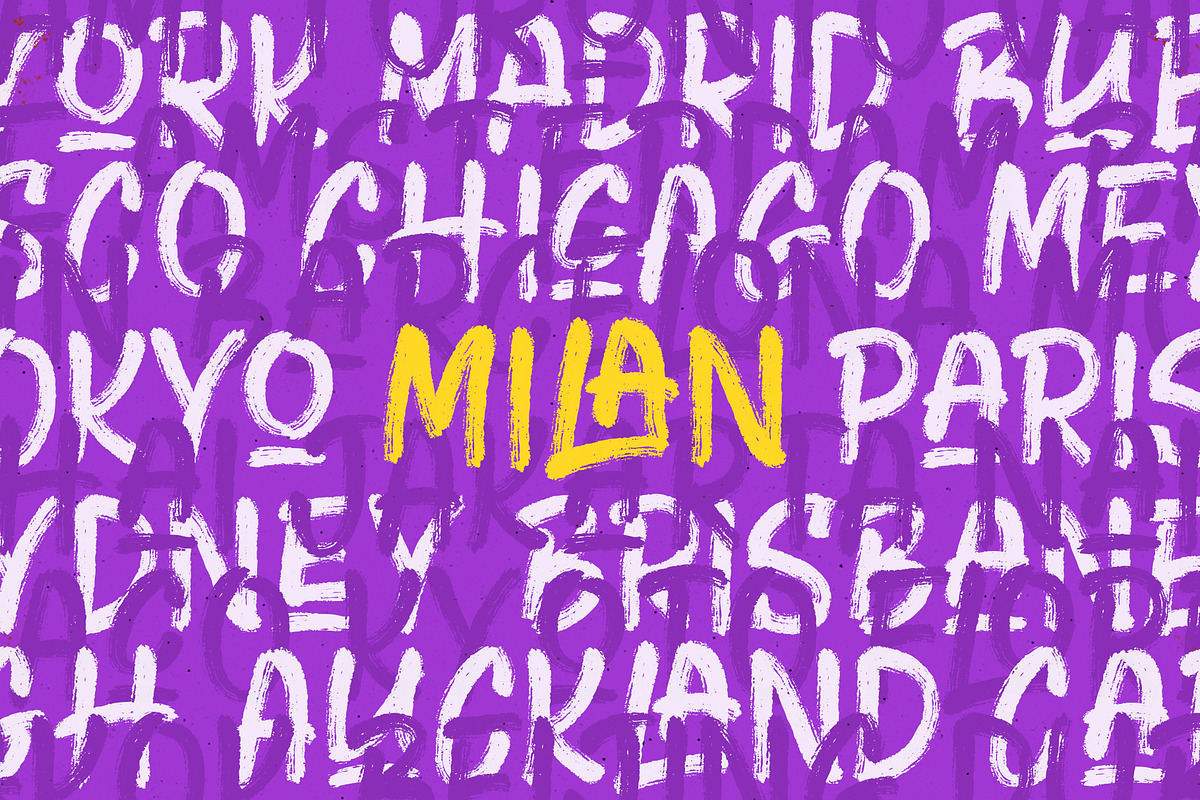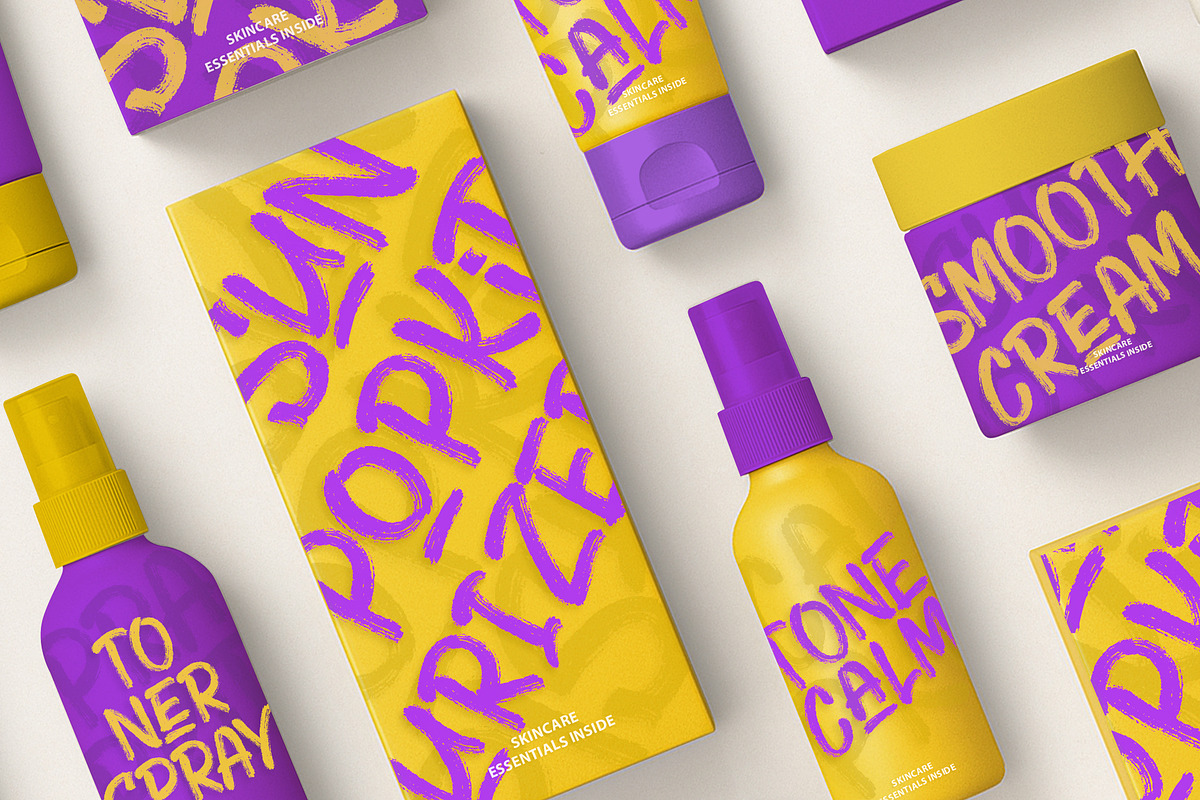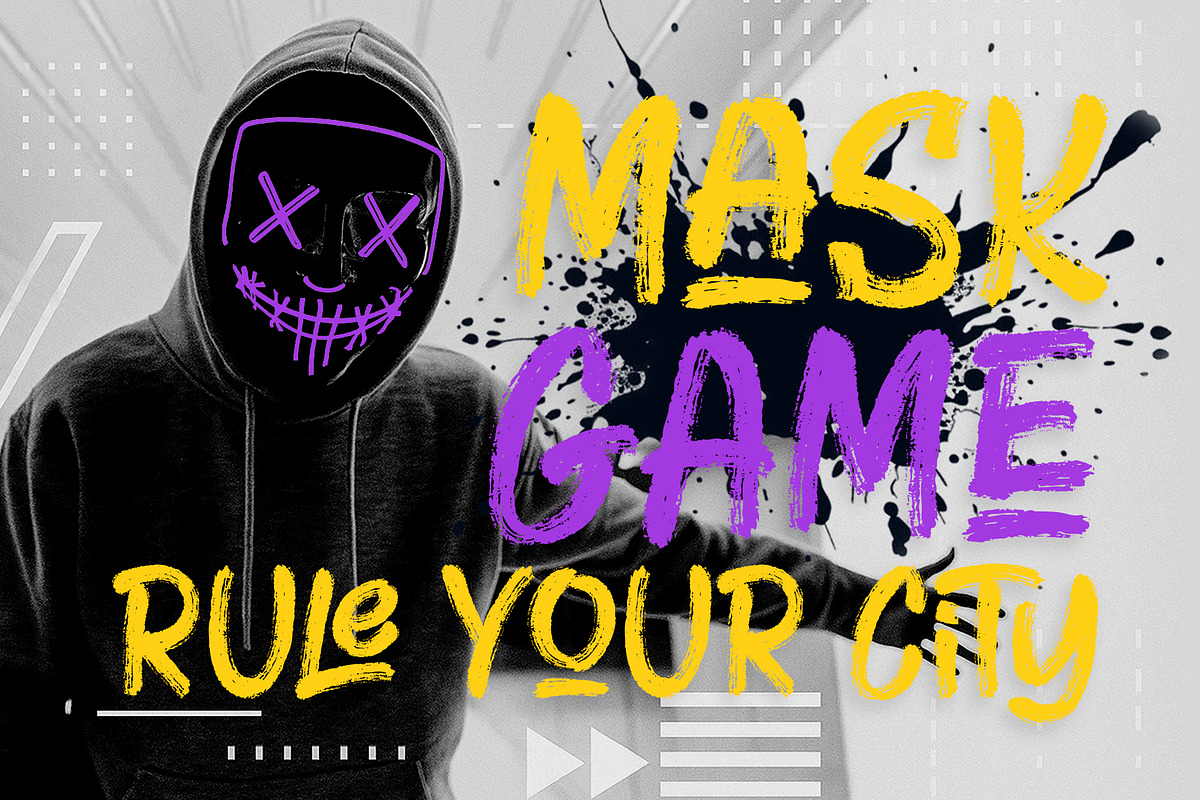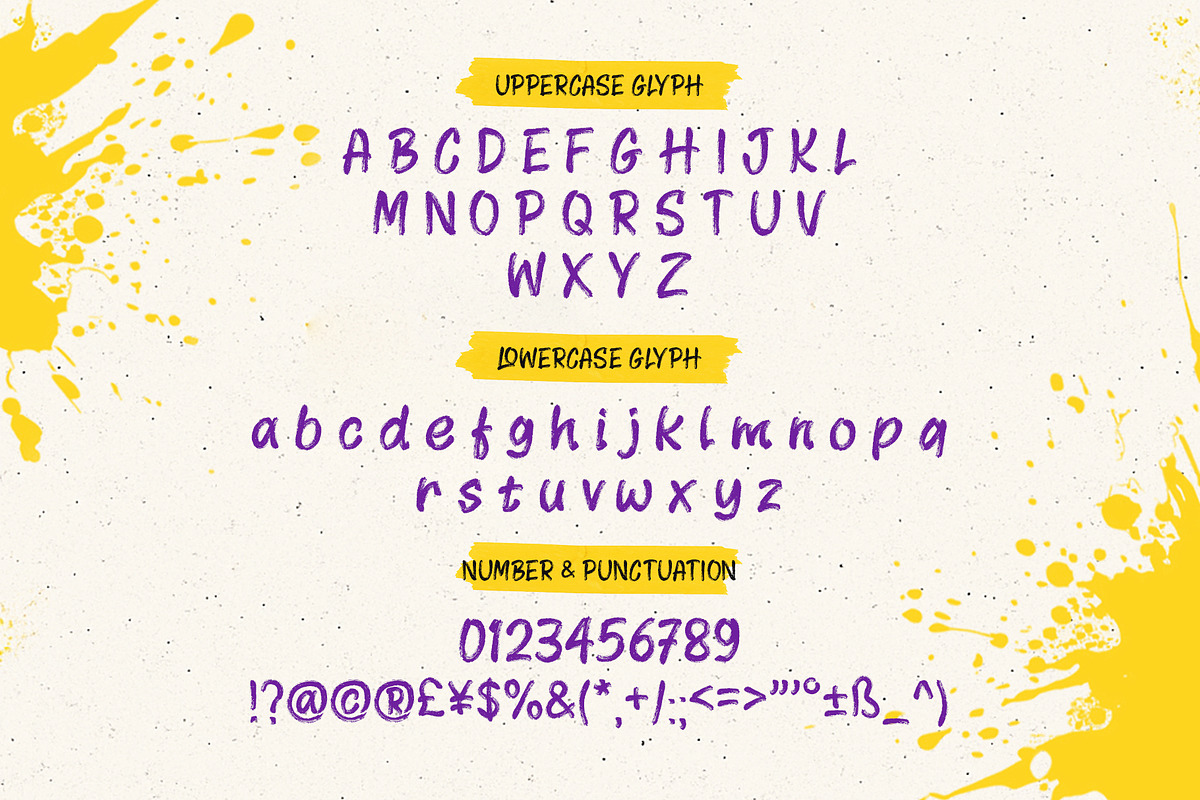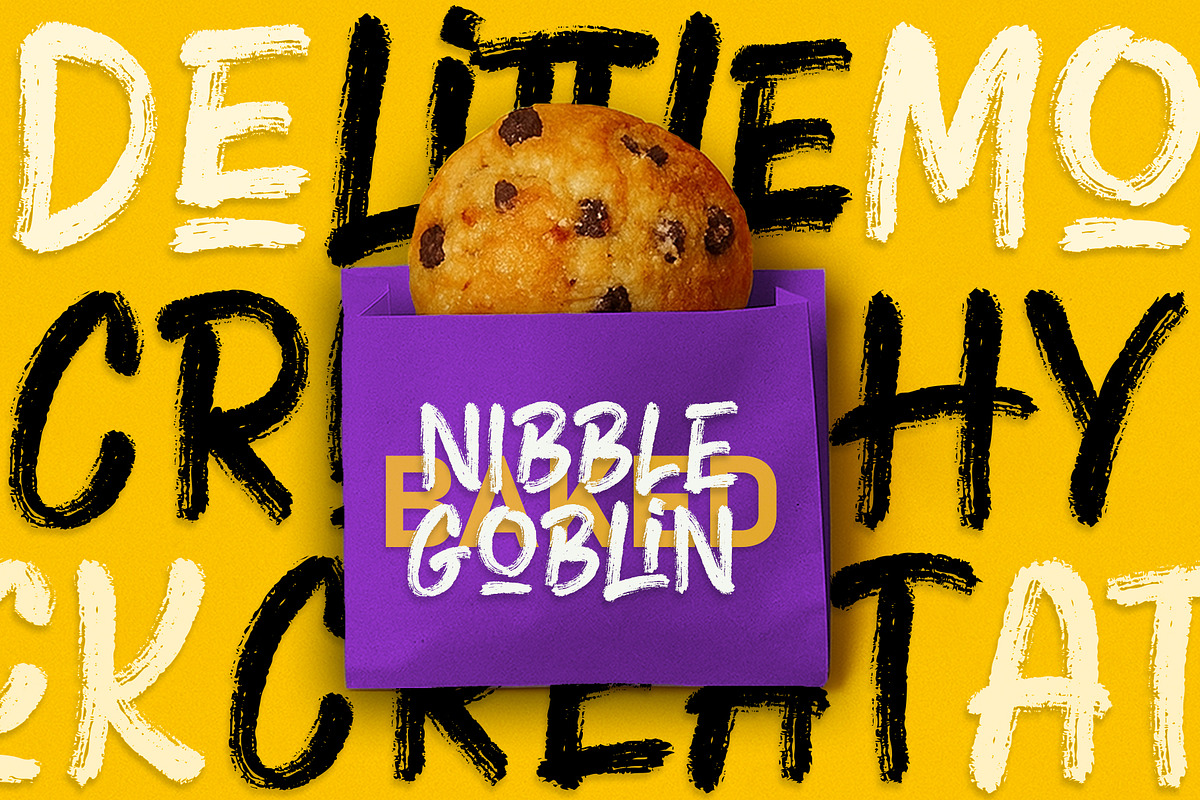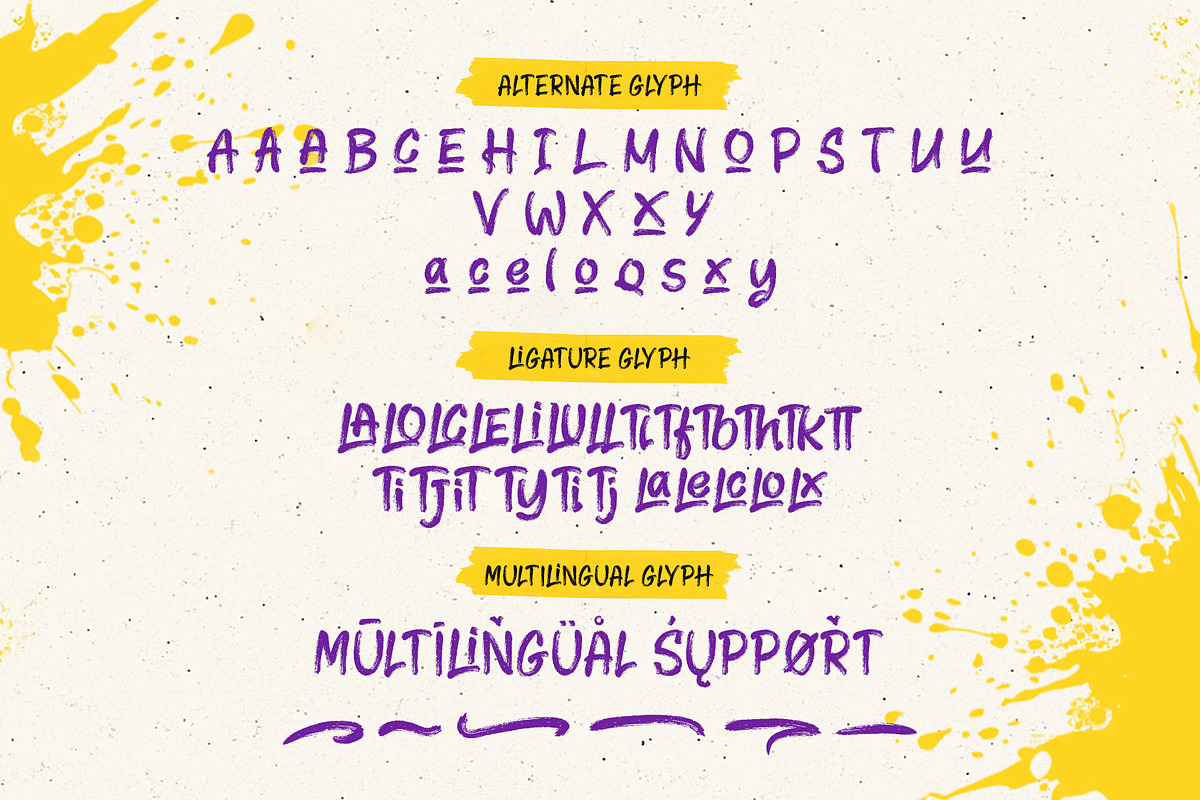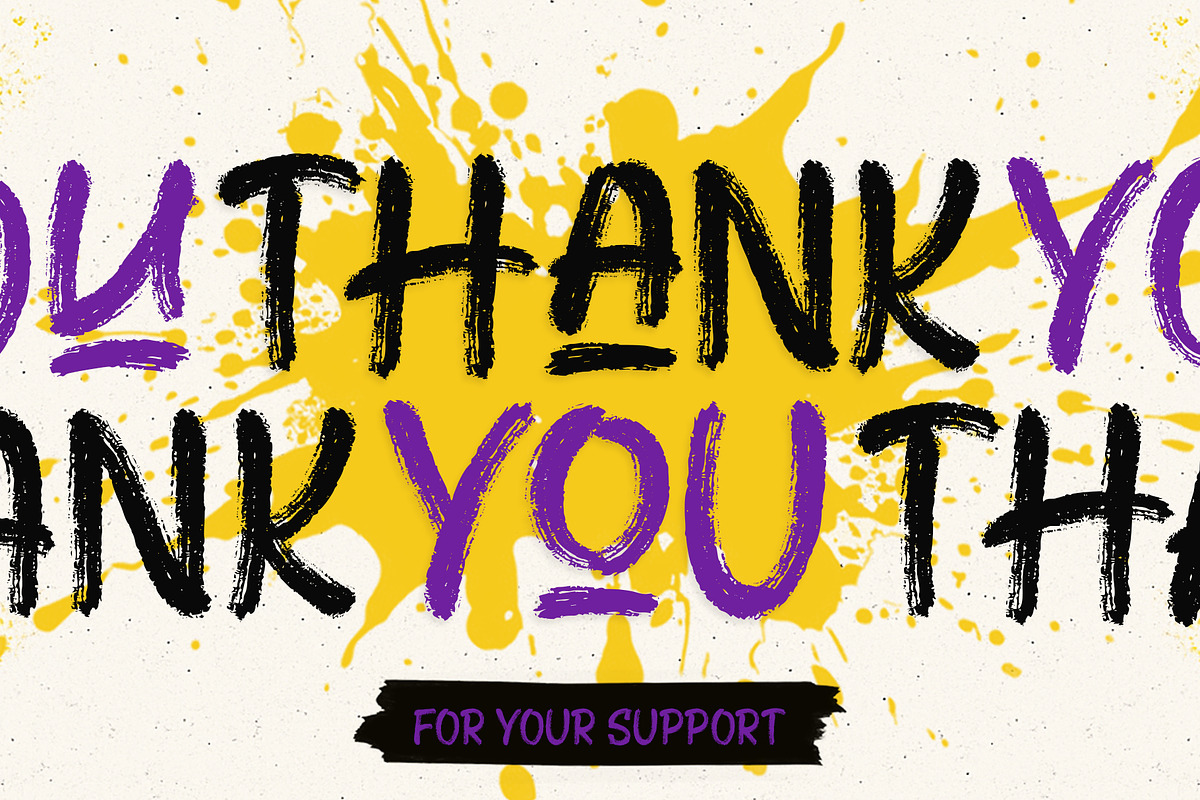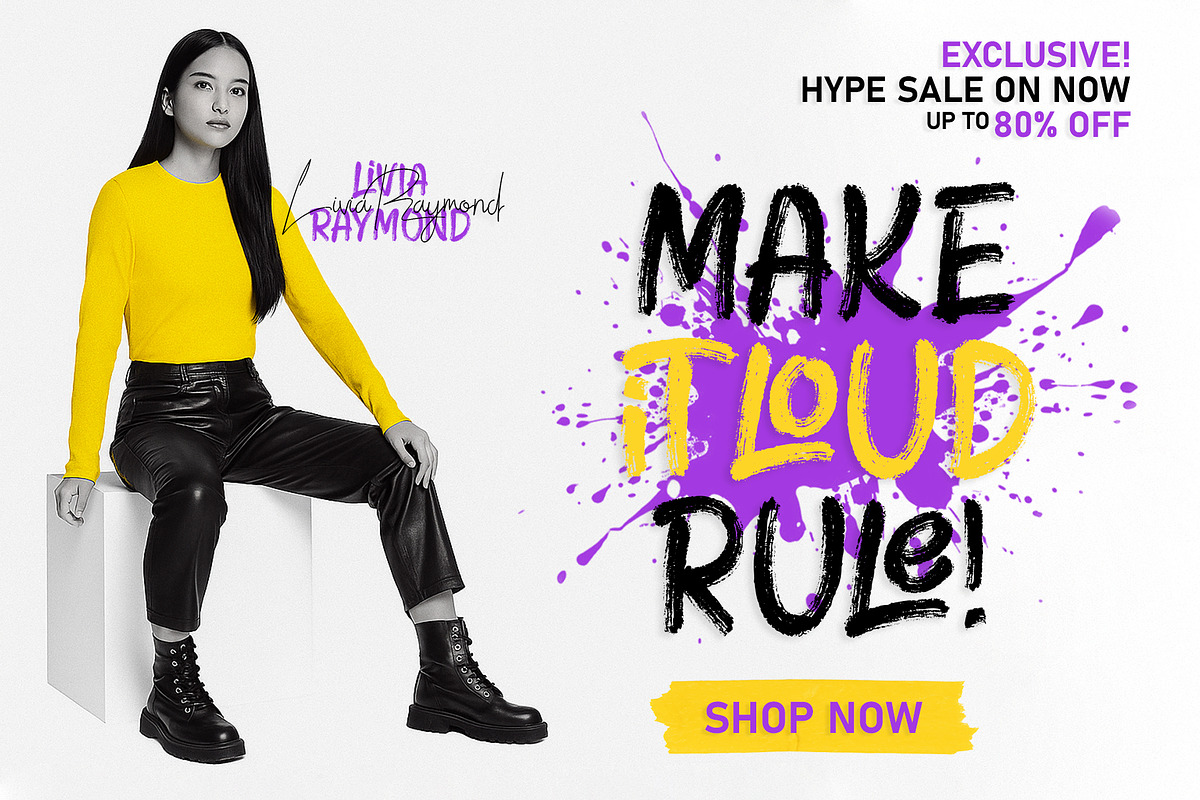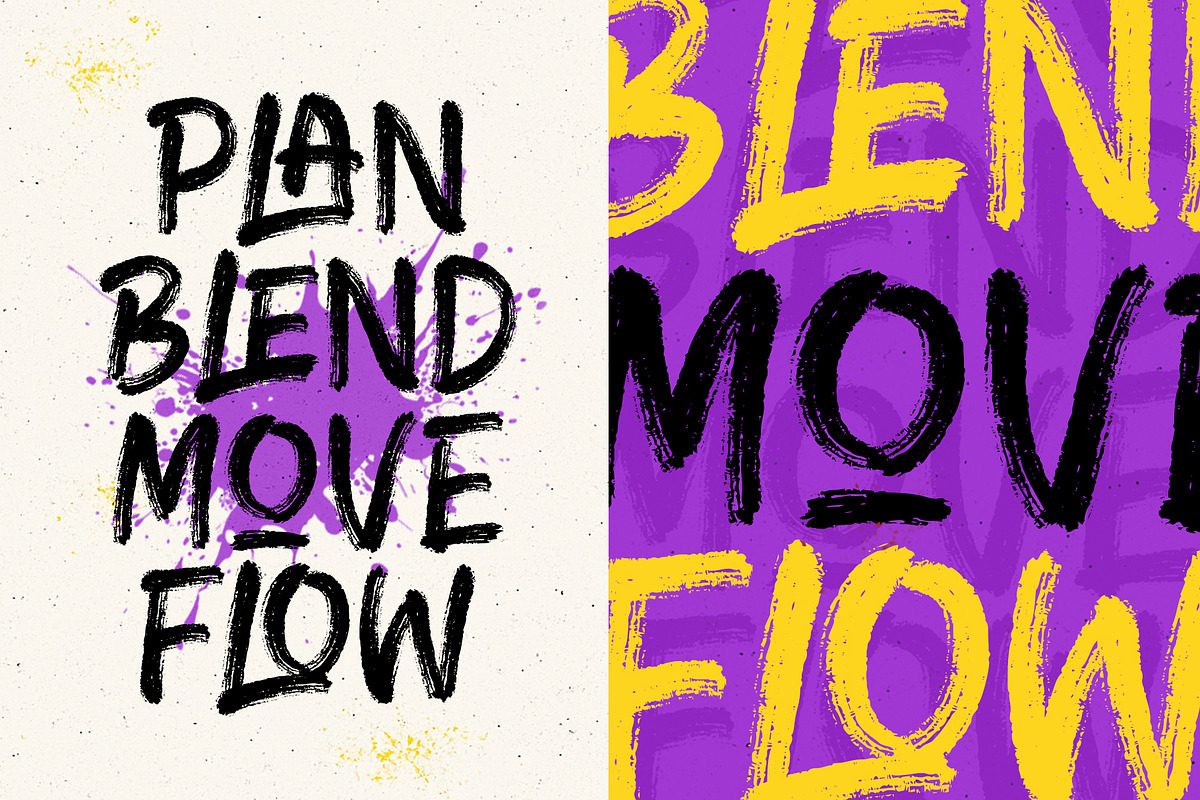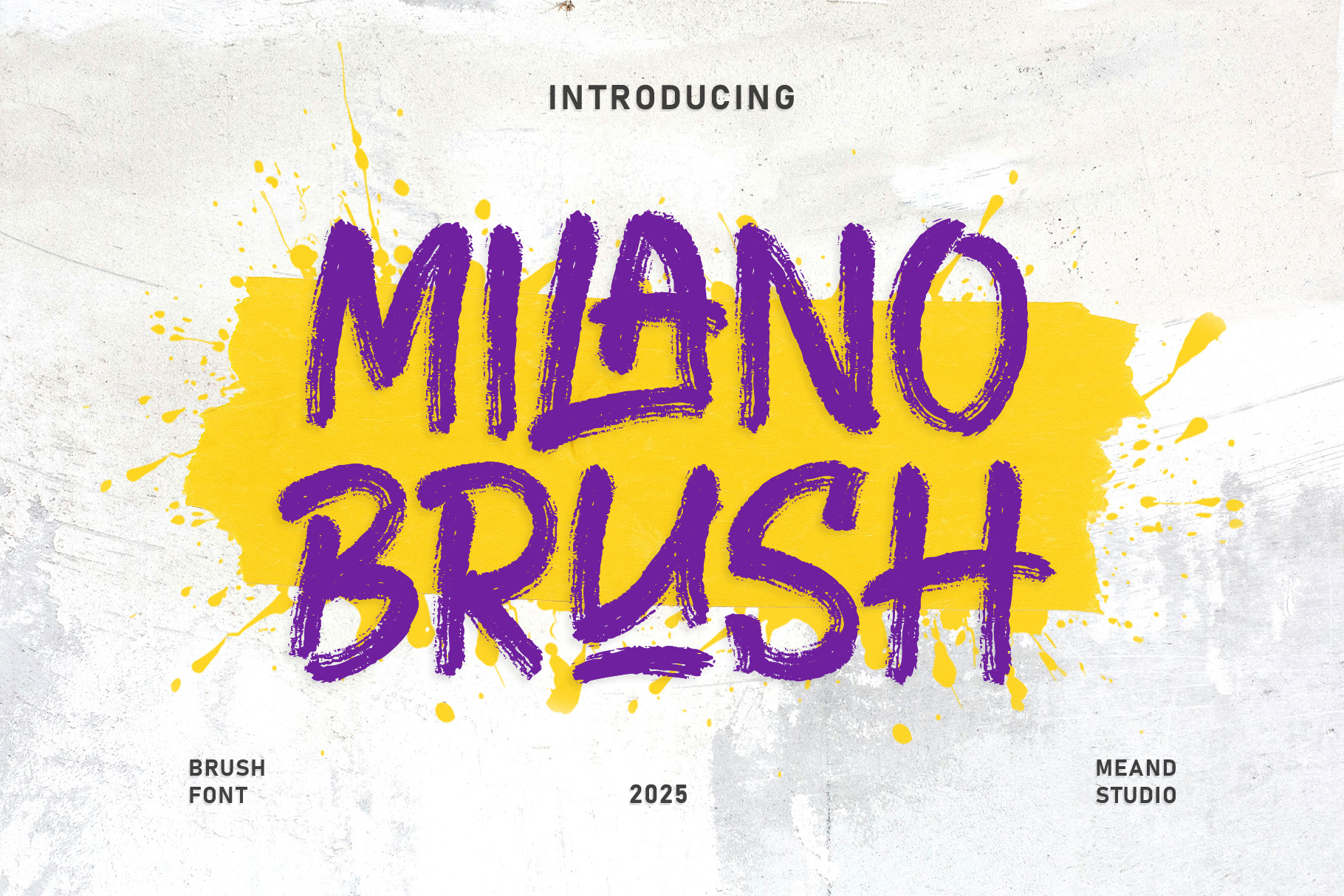
MILANO BRUSH Handwritten Brush Font
🔥 Ready to turn heads? Meet MILANO BRUSH, a dynamic handwritten brush font designed to bring maximum impact to your creative projects.
With bold strokes, raw energy, and a street-inspired vibe, MILANO BRUSH is perfect for:
Urban branding & streetwear designs
Bold posters & eye-catching headlines
Social media graphics that demand attention
Packaging, music covers, and creative projects that stand out
💥 What makes MILANO BRUSH special:
Handcrafted brush texture for authentic, organic feel
Uppercase & Lowercase letters
Alternative characters for unique looks
Complete numerals & punctuation
Ligature